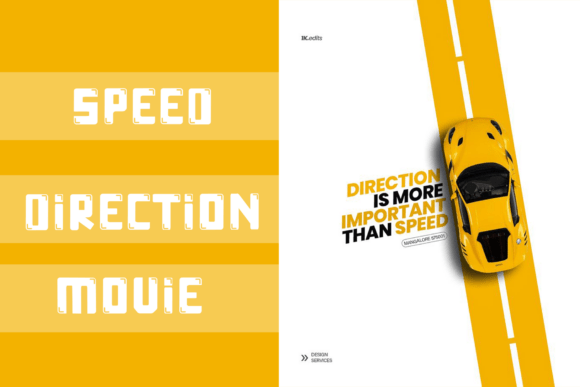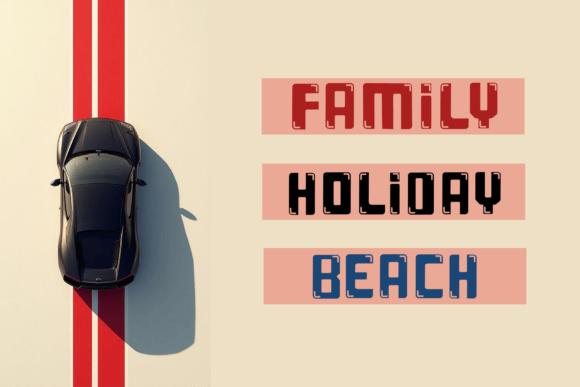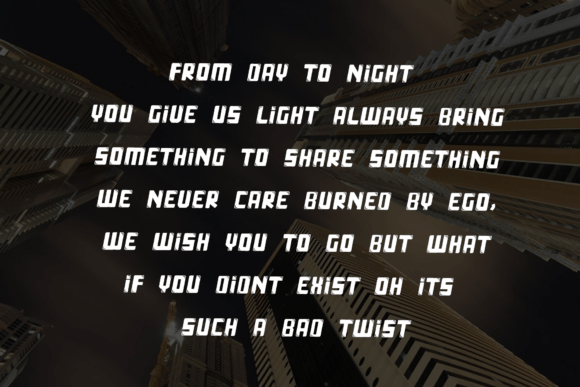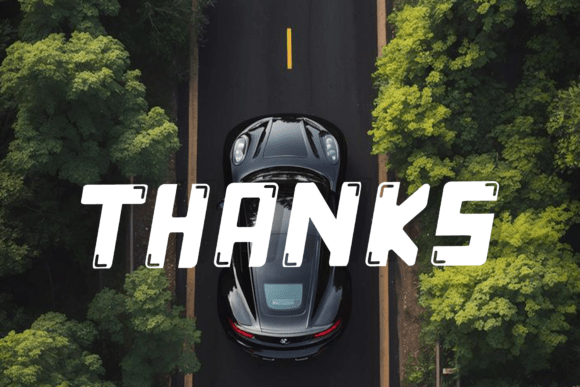
Introducing Block Bubble Font: The Ultimate Display Font for Bold Designs
Are you looking for a font that can add a powerful and fun touch to your designs? Look no further than Block Bubble Font, a bold and high-impact display font that combines a heavy, blocky structure with rounded, friendly edges. In this article, we’ll explore the features and benefits of Block Bubble Font, and why it’s a fantastic choice for automotive branding, modern streetwear logos, social media headlines, and any creative project that requires a bold and contemporary visual presence.
The Unique Characteristics of Block Bubble Font
Block Bubble Font is a unique and eye-catching typeface that stands out from the crowd. Its bold and blocky structure gives it a heavy, sturdy feel, while its rounded edges add a touch of friendliness and approachability. This font is perfect for designers who want to create a strong and lasting impression with their designs. Whether you’re working on a logo, headline, or advertisement, Block Bubble Font is sure to grab attention and make your message stand out.
Perfect for Automotive Branding
Automotive branding requires a font that can convey strength, power, and speed. Block Bubble Font is an excellent choice for automotive brands because of its bold and blocky structure, which evokes a sense of ruggedness and durability. The rounded edges also add a touch of friendliness, which can help to balance out the toughness of the font. Whether you’re designing a logo for a car manufacturer, a racing team, or an automotive accessories brand, Block Bubble Font is a great choice.
Great for Modern Streetwear Logos
Modern streetwear logos require a font that is bold, edgy, and contemporary. Block Bubble Font fits the bill perfectly, with its heavy, blocky structure and rounded edges giving it a fresh and youthful feel. The font is perfect for streetwear brands that want to create a strong and lasting impression with their logos. Whether you’re designing a logo for a clothing brand, a sneaker company, or a skateboard shop, Block Bubble Font is a great choice.
Ideal for Social Media Headlines
Social media headlines require a font that can grab attention and stand out in a crowded feed. Block Bubble Font is an excellent choice for social media headlines because of its bold and eye-catching design. The font is perfect for creating attention-grabbing headlines that will stop users in their tracks and make them take notice. Whether you’re designing a social media post for a brand, a business, or a personal project, Block Bubble Font is a great choice.
Key Features of Block Bubble Font
- Bold and high-impact design: Block Bubble Font is designed to make a statement, with a bold and high-impact design that grabs attention.
- Blocky structure: The font’s blocky structure gives it a heavy, sturdy feel that is perfect for creating a strong and lasting impression.
- Rounded edges: The rounded edges add a touch of friendliness and approachability to the font, making it perfect for brands that want to convey a sense of approachability.
- Versatile: Block Bubble Font is a versatile font that can be used for a wide range of design projects, from logos and headlines to advertisements and more.
Tips for Using Block Bubble Font
Here are a few tips for using Block Bubble Font in your designs:
- Use it sparingly: Because of its bold and high-impact design, Block Bubble Font is best used sparingly. Use it for headlines, logos, or other design elements that require a strong and attention-grabbing font.
- Pair it with a simple font: Block Bubble Font is a bold and eye-catching font, so it’s best paired with a simple font that won’t compete with it. A simple sans-serif font or a clean script font works well with Block Bubble Font.
- Experiment with colors: Block Bubble Font looks great in a variety of colors, so don’t be afraid to experiment with different colors and gradients. A bright and bold color can really make the font pop.
Block Bubble Font is a bold and high-impact display font that is perfect for designers who want to create a strong and lasting impression with their designs. Its unique combination of a blocky structure and rounded edges makes it a versatile font that can be used for a wide range of design projects, from automotive branding and modern streetwear logos to social media headlines and more. With its bold and eye-catching design, Block Bubble Font is sure to grab attention and make your message stand out.